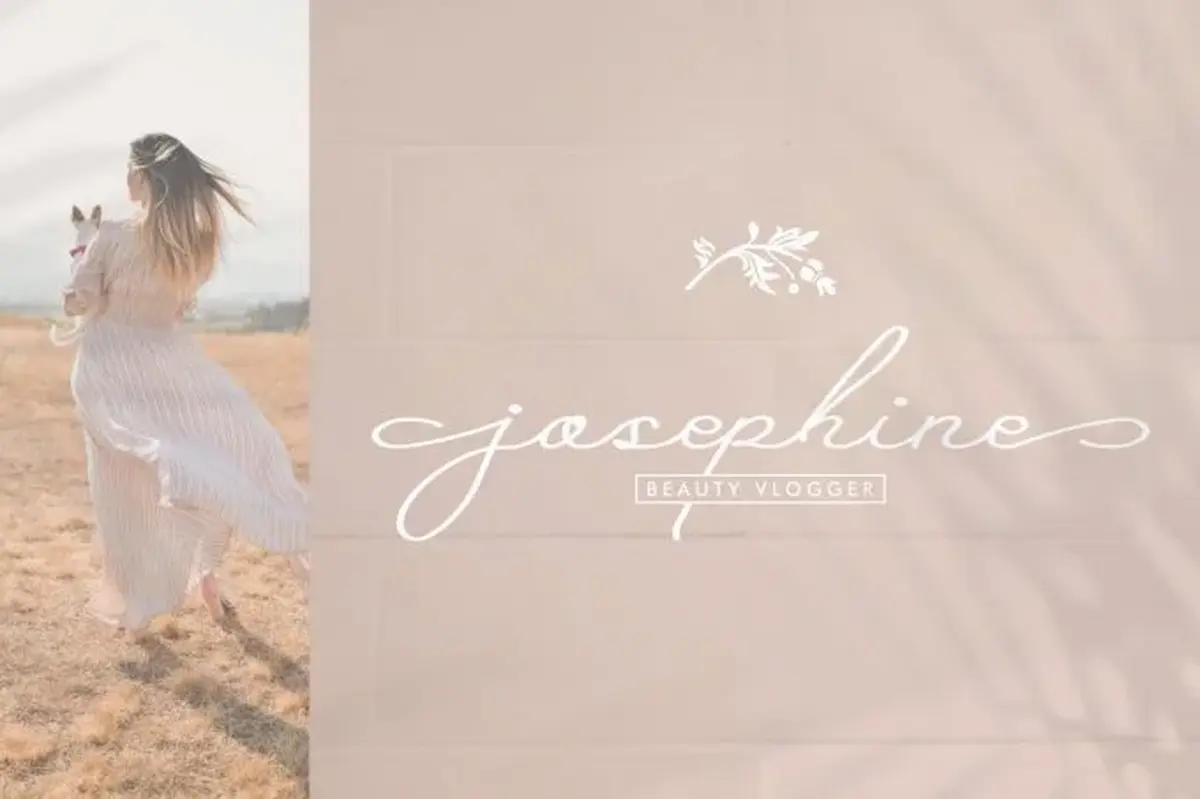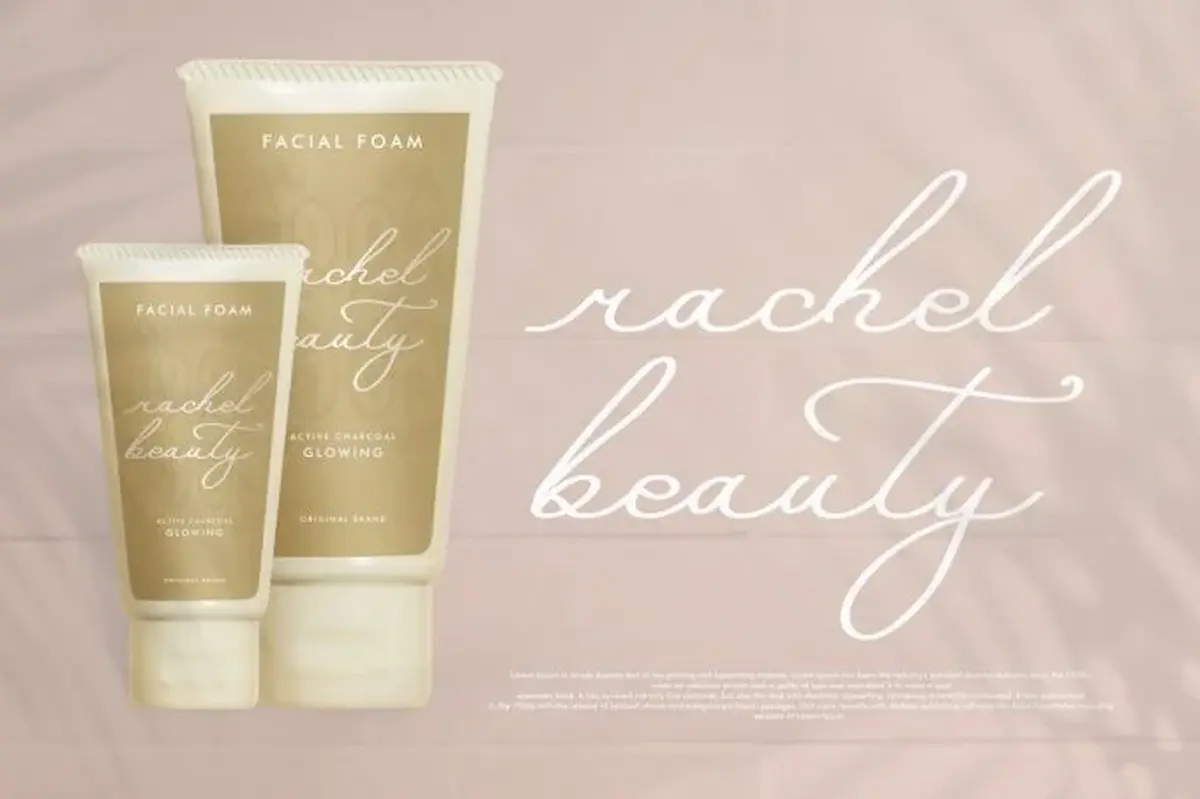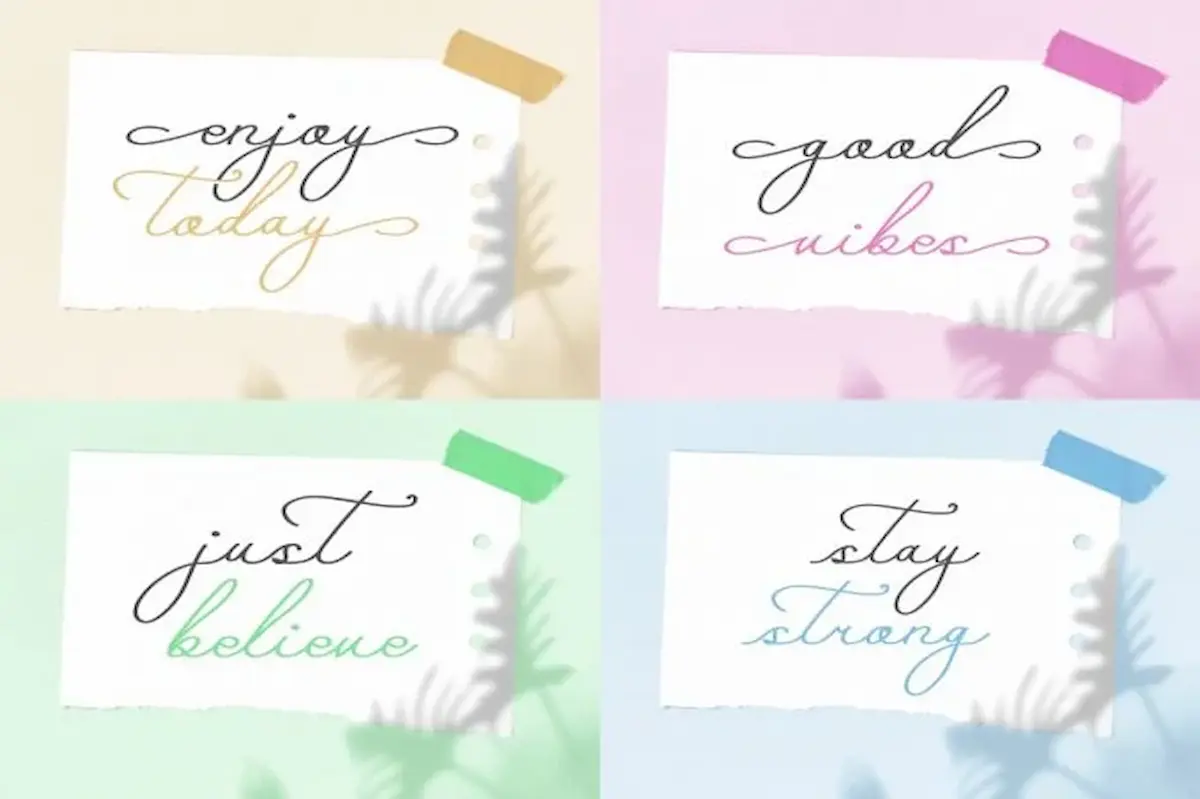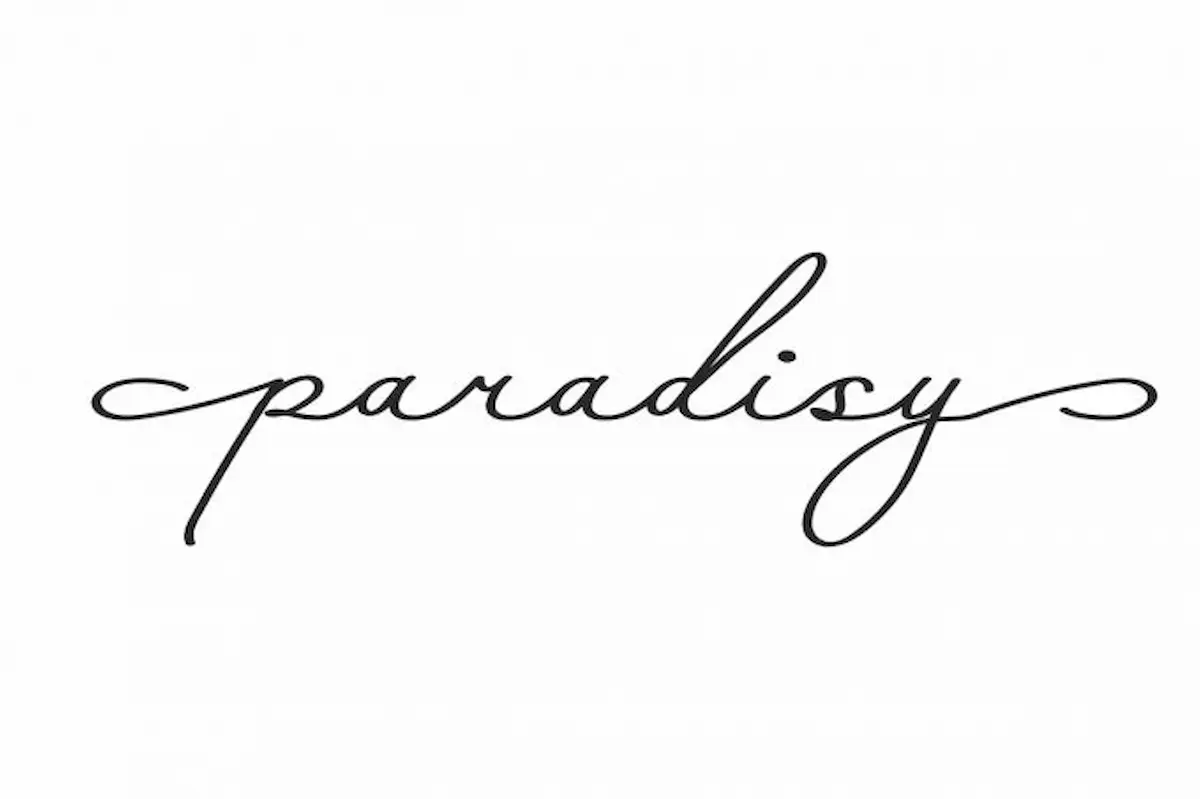
Paradisy Font is a professional signature font by NihStudio. Paradisy Font was Made for business, professional, video, photography etc
Paradisy is a professional classic signature script font. It was made in Indonesia 2020 by Our Font Designer : Widi and Suci.
Paradisy signature font will be awesome for many projects (some require extended license) including : branding, logo, stationery, business card, signage, flyer, brochure etc. The theme style of the font is elegant, handmade, old, casual, vintage, stylish, sophisticated and classic brush style. The font will be match for this typeface: wedding, events, real estate, architect, law firm, florist, gardening, makeup artist, travel, hotel, musician etc